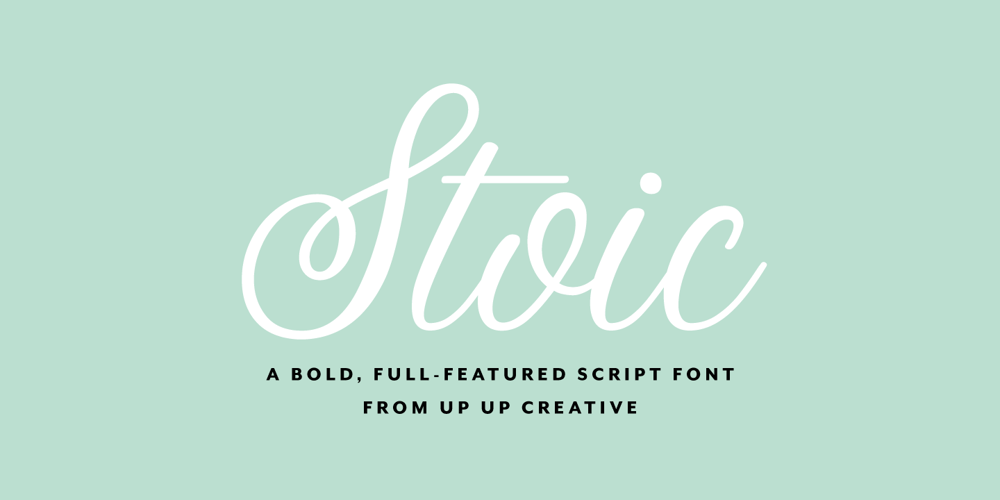
Stoic Font Family was designed by Julie Green and published by Up Up Creative. Stoic contains 1 styles and family package options. Introducing Stoic, a bold, full-featured script font with tons of OpenType features. With its smooth connections and considerable charm, Stoic is perfect for logos, wedding invitations, stationery design, branding projects, photo overlays, editorial features, and more. Stoic comes with more than 550 glyphs! Specific OpenType features include contextual alternates, stylistic alternates, initial and final forms, multiple alternate glyphs for many letters (accessed through the glyphs panel), multilingual support (including multiple currency symbols), three ampersands, 101 standard and discretionary ligatures, and standard numbers. The OpenType features can be very easily accessed by using OpenType-savvy programs such as Adobe Illustrator and Adobe InDesign. (To access these awesome features in Microsoft Word, you’ll need to get comfortable with the advanced tab of Word’s font menu.)